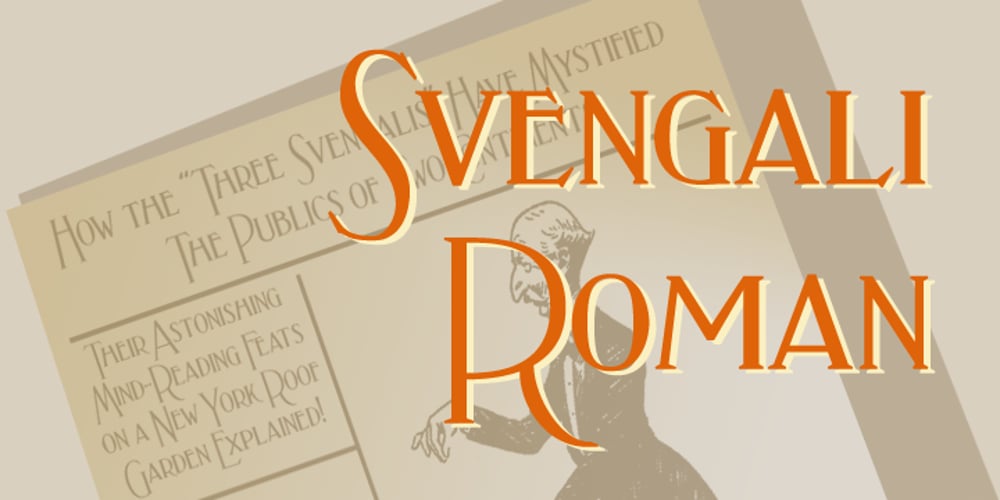
Svengali Roman
Svengali Roman font
Svengali Roman Font Family was designed by Paul James Lloyd and published by Greater Albion Typefounders. Svengali Roman contains 4 styles and family package options. Svengali Roman is loosely inspired by a scrap of 1920s newspaper posted in the Typophile font identification forum. The consensus view there favored the view that the specimen showed hand-drawn lettering. As that lettering had such charm and character Greater Albion decided to fill the gap and design a face loosely based on it. Svengali Roman is the result and makes an excellent face for eye catching period poster design, or for any headings and titles. Svengali Roman has now been expanded to a full family, including regular and bold weights as well as incised (a hand tooled look) and newsprint (weathered warn type with ink bleeds) styles.